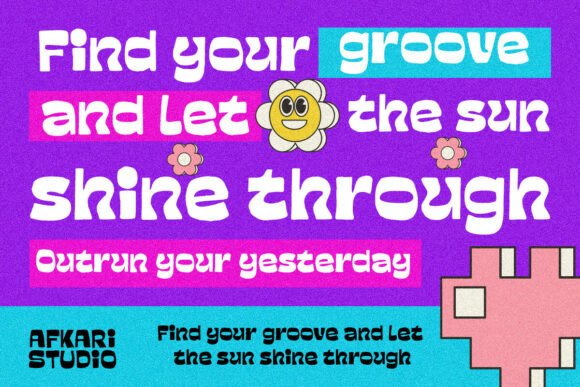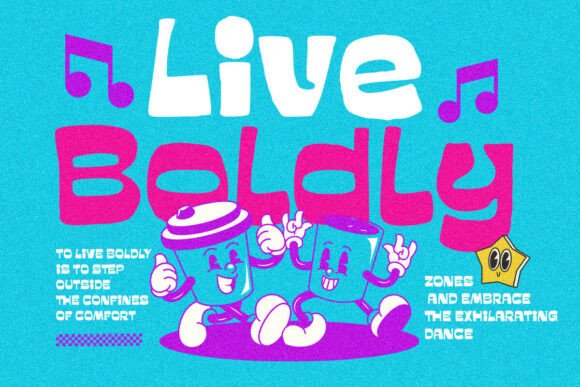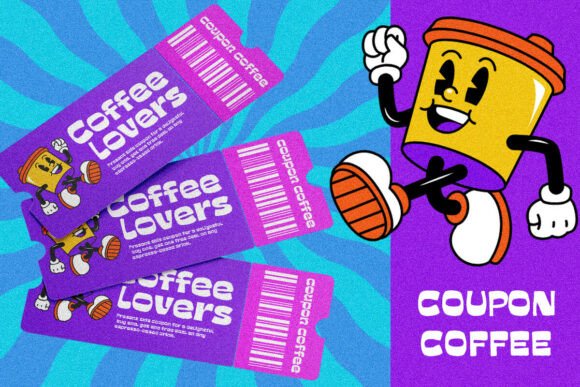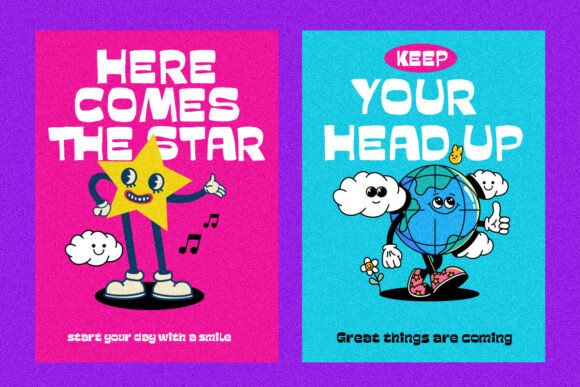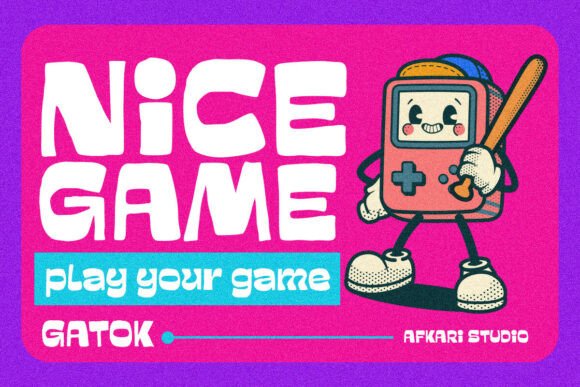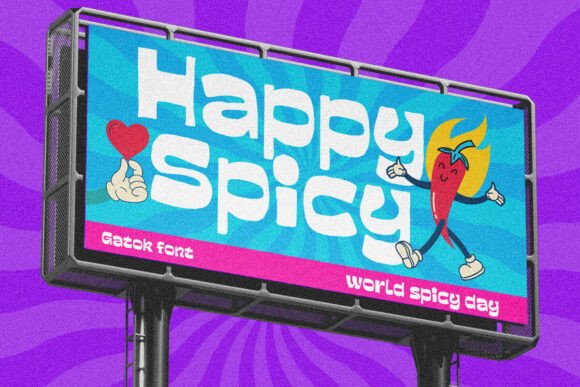
Discover the Playful Charm of Gatok Font
Have you ever been in the middle of a design project, and suddenly, you’re stuck on finding the perfect font? I recall a recent experience where I was working on a branding project for a children’s toy company. The client wanted a font that was fun, energetic, and would appeal to kids. After hours of searching, I stumbled upon Gatok Font, and it instantly became the star of the show! In this article, we’ll dive into the world of Gatok Font, exploring its features, uses, and what makes it a fantastic addition to your design toolkit.
What Makes Gatok Font Special?
Gatok is a playful display typeface designed to bring fun, creativity, and bold personality into your designs. Featuring quirky shapes, lively proportions, and expressive character forms, this font delivers a cheerful and eye-catching appearance that instantly grabs attention. With its unique and energetic style, Gatok is perfect for projects that need a friendly and creative vibe.
Highlighted Features:
- Complete set of uppercase and lowercase letters, numerals, and punctuation
- Fun and playful display style with unique character shapes
- Smooth readability for headlines and creative layouts
An Honest Review of Gatok Font
- ✨ Unique and playful character shapes that add a touch of whimsy to any design
- ✅ Smooth readability, even at larger font sizes
- 💡 Perfect for projects that require a friendly and creative vibe
- 🤔 May not be suitable for formal or professional projects, as it’s quite playful
- ⚠️ Limited use for body text, as it’s designed primarily for headlines and creative layouts
The Backstory of Gatok Font
Gatok Font was designed with the intention of creating a playful and energetic typeface that would bring fun and creativity to designs. The designer aimed to craft a font that would be perfect for projects that require a friendly and approachable vibe. With its unique character shapes and smooth readability, Gatok Font has become a popular choice among designers and crafters.
Q: What type of projects is Gatok Font best suited for?
A: Gatok Font is perfect for projects that require a friendly and creative vibe, such as branding for kids’ products, social media graphics, posters, packaging, and fun merchandise.
Q: Can I use Gatok Font for body text?
A: While Gatok Font is designed primarily for headlines and creative layouts, it can be used for body text in certain situations. However, it’s recommended to use a clear and readable font for body text to ensure optimal readability.